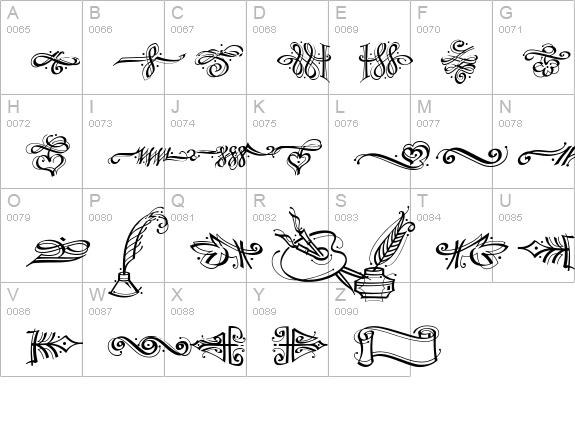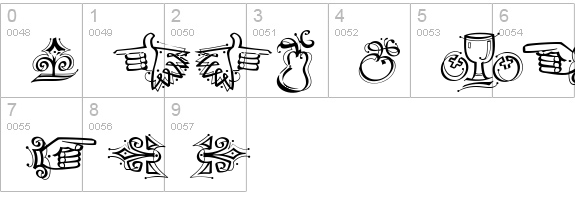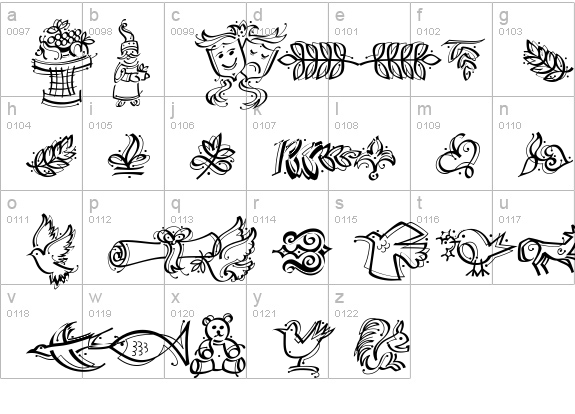
DF Calligraphic Ornaments Plain Font Details
DF Calligraphic Ornaments Plain font is a stunning collection of delicate and intricate calligraphic ornaments that add a touch of elegance and sophistication to any design project. These ornate embellishments are perfect for adding a touch of class to invitations, greeting cards, logos, and more. What makes this font even more appealing is that it is available for free download at FontsMarket.com. This means you can easily enhance your designs with these exquisite ornaments without any cost. Don't miss out on the opportunity to elevate your projects with the beauty and charm of DF Calligraphic Ornaments Plain font. Download it for free today and unlock endless creative possibilities!